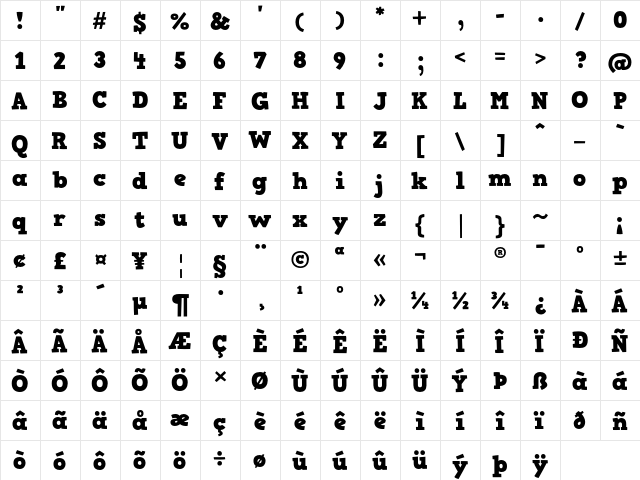
HVD Comic Serif Pro Regular
| Foundry | Hannes von Dڨren |
| Designer | Hannes von Dڨren |
Design Context for HVD Comic Serif Pro Typeface
HVD Comic Serif Pro has an approachable, lighthearted character — its loose, expressive forms are well-suited to children's content, casual branding, and fun-first design.
Great for children's books, toy packaging, family event branding, and casual consumer-facing design.
Font Pairing: Pairs well with a rounded or humanist sans for body copy, maintaining the friendly tone without relying on HVD Comic Serif Pro to carry extended reading.
Pro Tip: Avoid using HVD Comic Serif Pro for long passages of text — it works best for headlines, labels, and short calls to action.